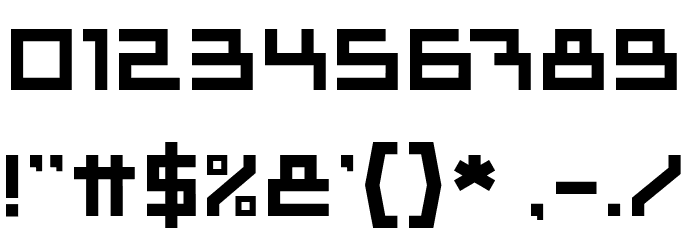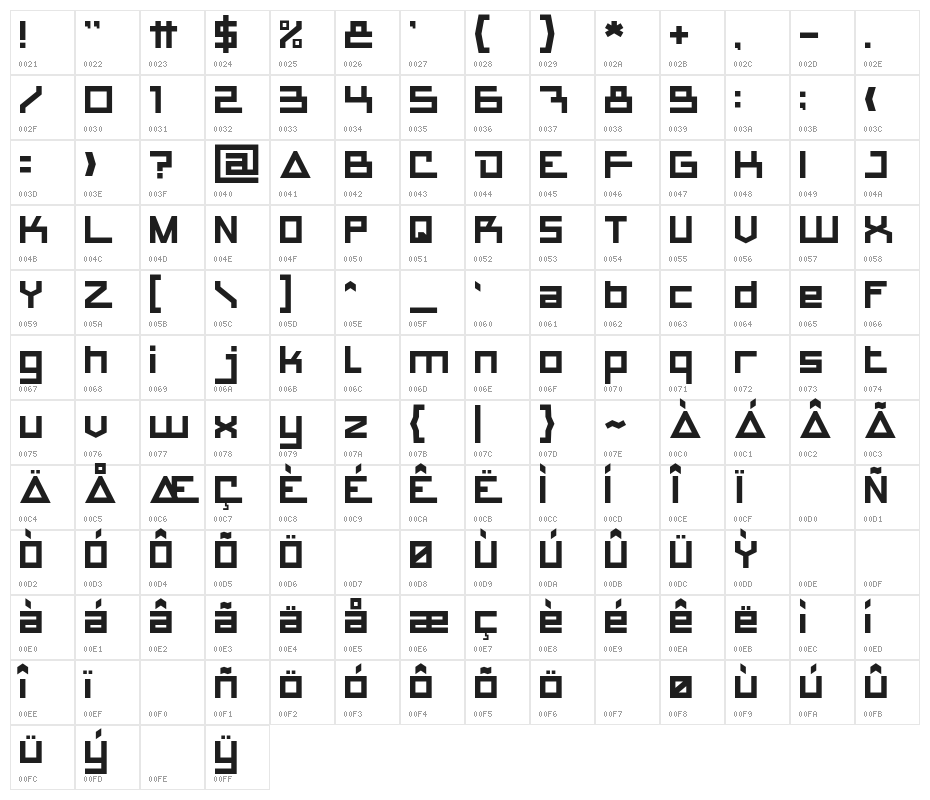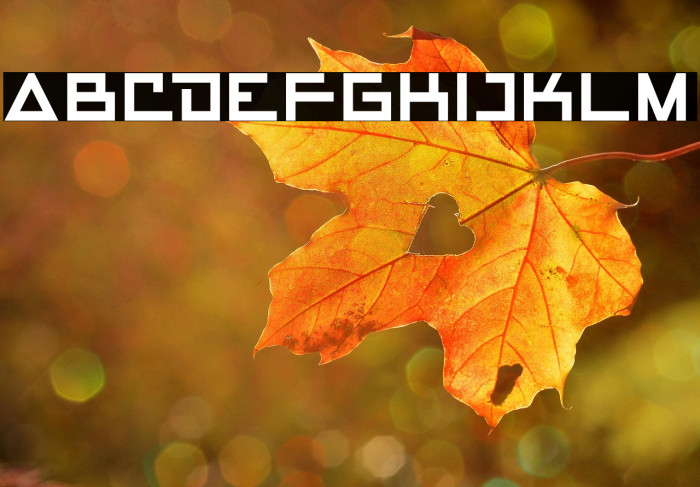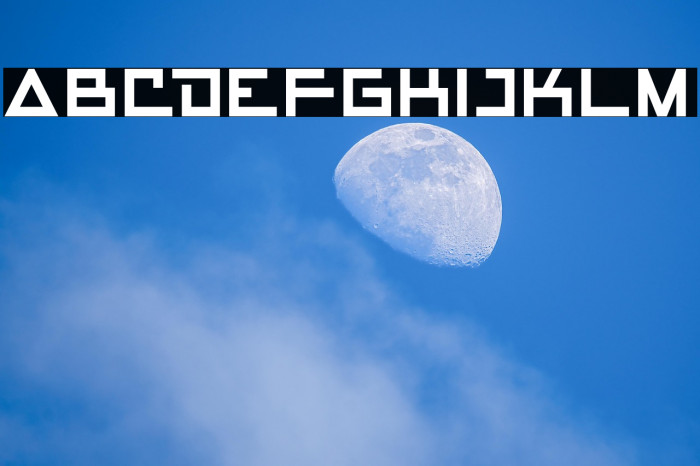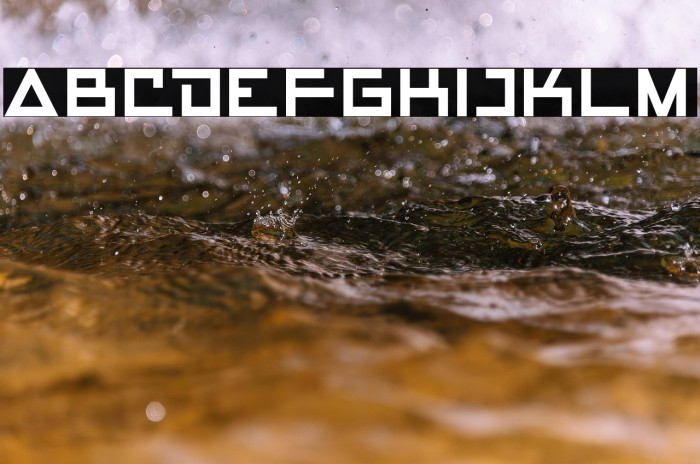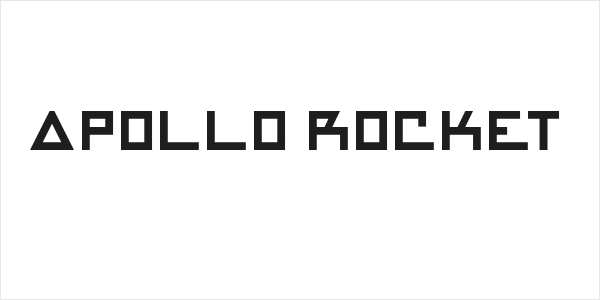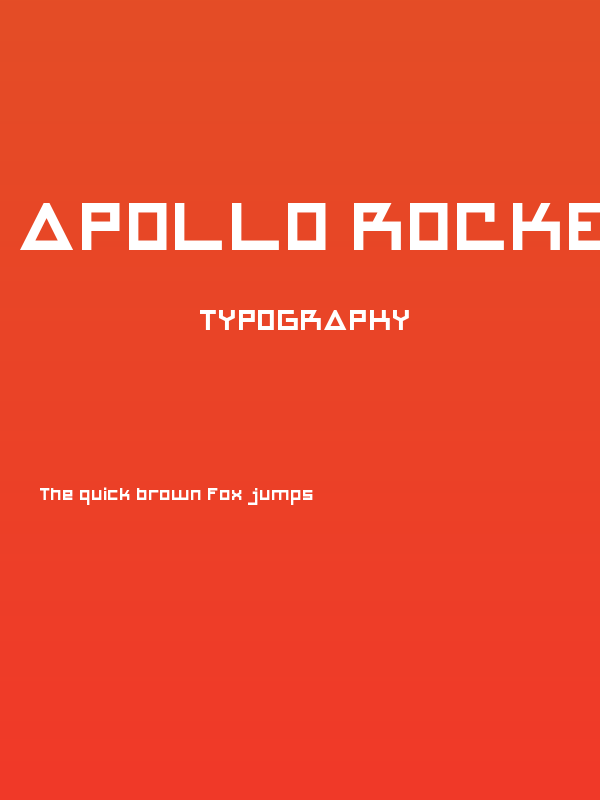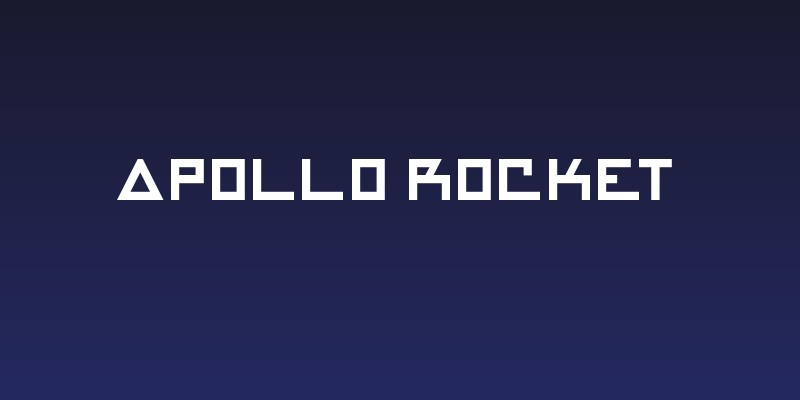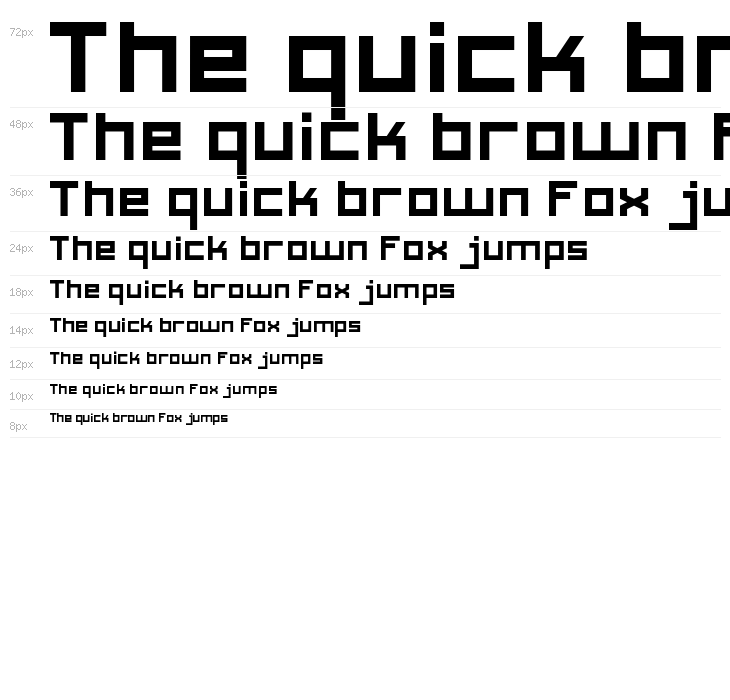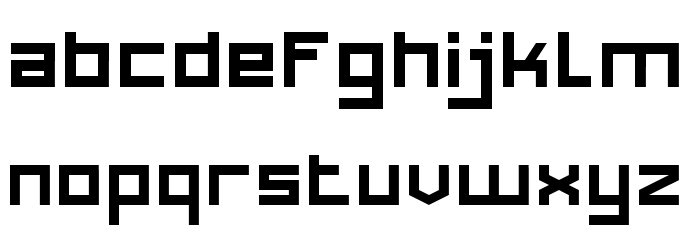
APOLLO ROCKET Font
APOLLO ROCKET Description
This font features a bold, geometric design with a futuristic and technical appearance. The characters are constructed with sharp angles and straight lines, giving it a mechanical and structured feel. The uppercase and lowercase letters maintain a consistent height, contributing to a uniform look. The numerals and special characters follow the same angular style, ensuring cohesion across all glyphs. This font's design is reminiscent of digital or space-themed aesthetics, making it suitable for projects that require a modern and innovative touch.
| Proposed Projects | Ideal for technology branding, sci-fi movie posters, video game titles, and digital interfaces. |